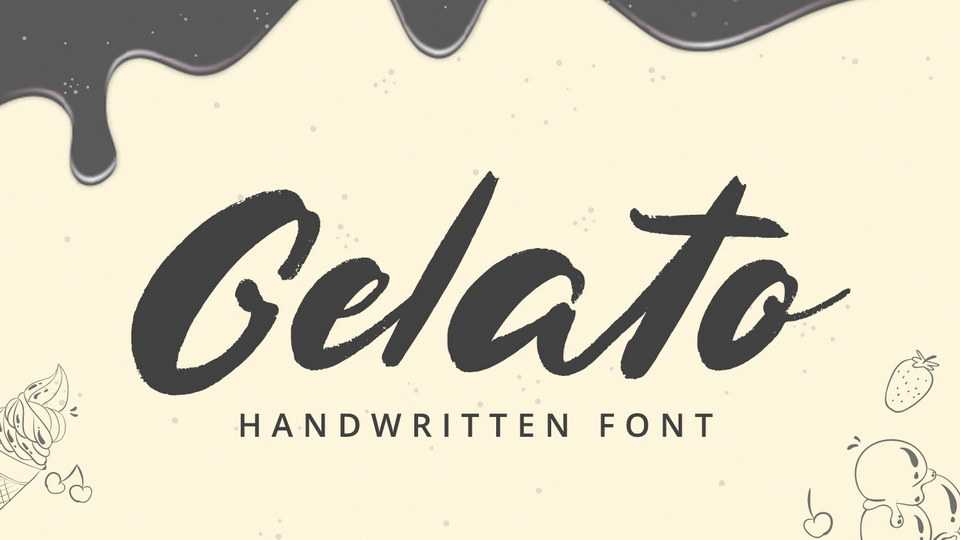
Download Gelato font, a stunning handwritten typeface with an authentic brush look and a casual feel. Gelato will be perfectly used for branding, lettering, logotype, clothing, poster, magazine, packaging, posters, shopping bags, t-shirts, book covers, special events and other design project.
Designer: Alpaprana Studio